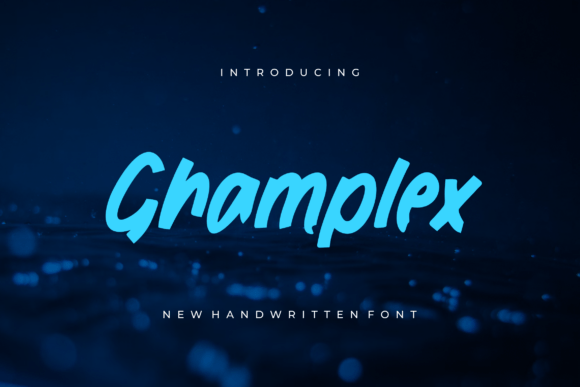
Introduction to Ghamplex Font
Ghamplex is a bold handwritten font that looks natural and friendly.
Its thick letters give a personal touch, making it perfect for invitations, posters, and any design where you want to add warmth and character .
Why Choose Ghamplex Font?